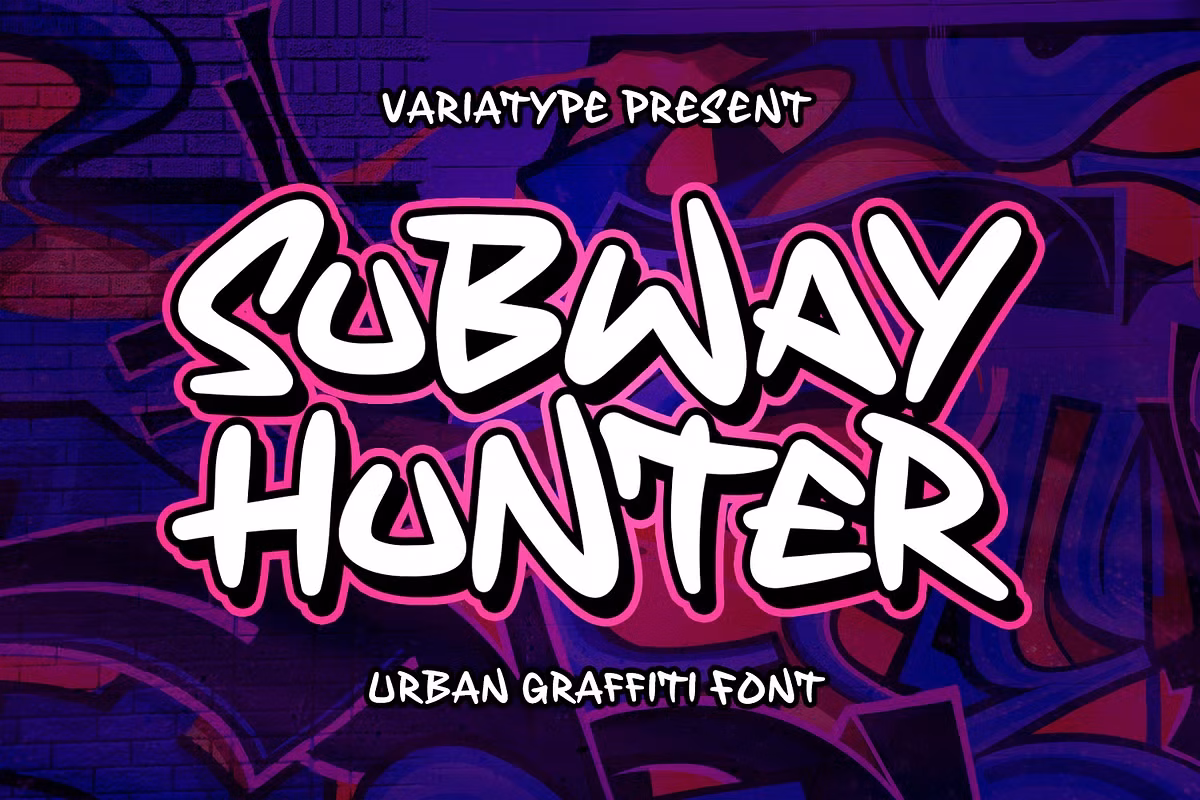
Subway Hunter - Urban Graffiti Font Free Download
Subway Hunter - Urban Graffiti Font Free Download is a bold and edgy typeface inspired by street art and urban graffiti. With its rough, spray-painted look and raw energy, this font is perfect for music posters, streetwear branding, skate culture designs, urban events, and any project that needs an urban, rebellious touch.
Subway Hunter - Urban Graffiti Font Free Download brings the gritty, dynamic vibe of street culture to your typography. Whether you're working on posters, graffiti-inspired artwork, or bold social media graphics, this font adds attitude and authenticity to your design. Download it today and make a statement with the street-smart style of Subway Hunter!